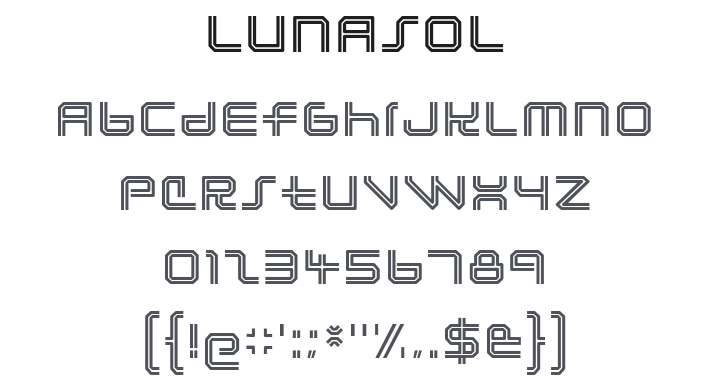
Lunasol Font Family
About Lunasol
Lunasol is a factory-made, mechanical square techno display typeface with crisp, geometric all-caps letterforms built on a strict modular grid — clean, industrial precision that radiates cool, systematic authority. Four layerable files (Regular, Sequence, Aurora, Eclipse) enable striking offset colour combinations and chromatic depth effects. Perfect for sci-fi game titles, tech branding, futuristic interfaces, industrial posters, and any design needing structured, machine-engineered confidence.